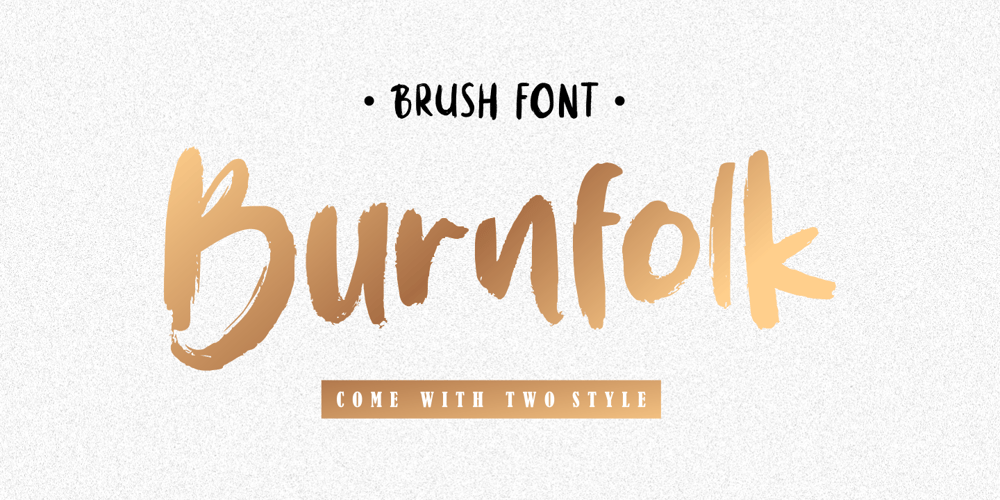
Burnfolk Font Family was designed by Fachrizal Yusuf and published by Allouse Studio. Burnfolk contains 1 styles and family package options. Burnfolk a Brush Font that bring an a natural brush impression.Come with separate alternate and Multi-Lingual Support.Burnfolk is perfect for any tittles, logo, product packaging, branding project, megazine, social media, wedding, or just used to express words above the background.Enjoy the font, feel free to comment or feedback, send me PM or email. Thank You!